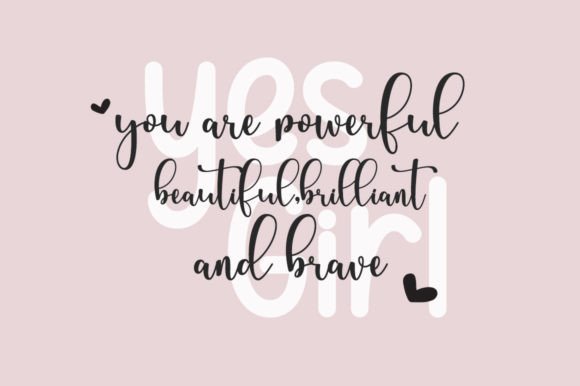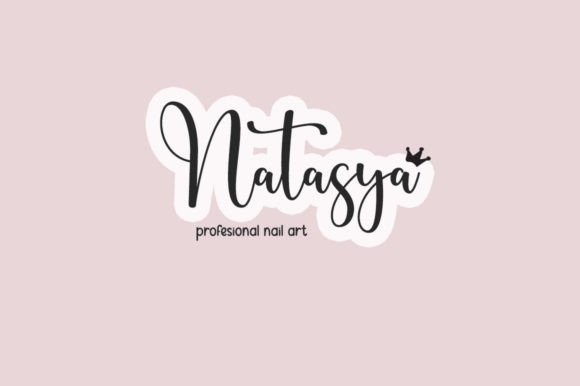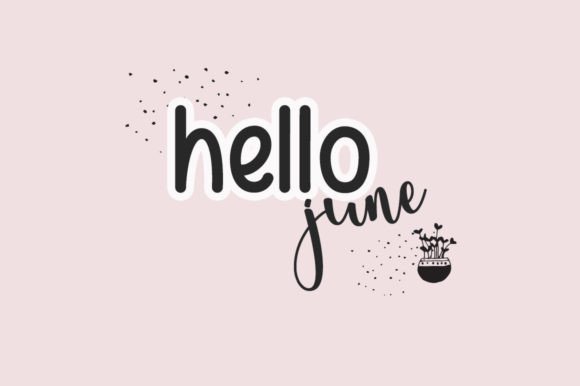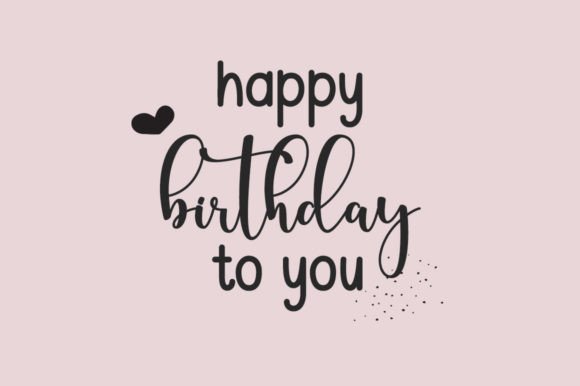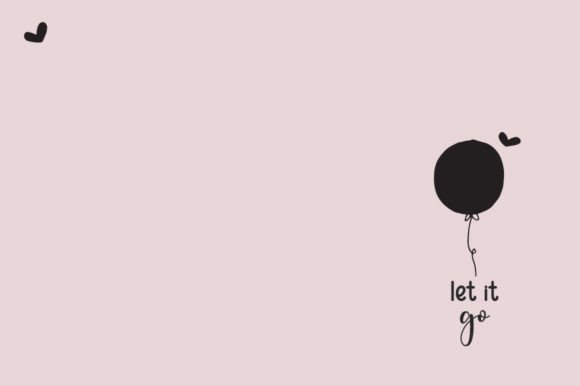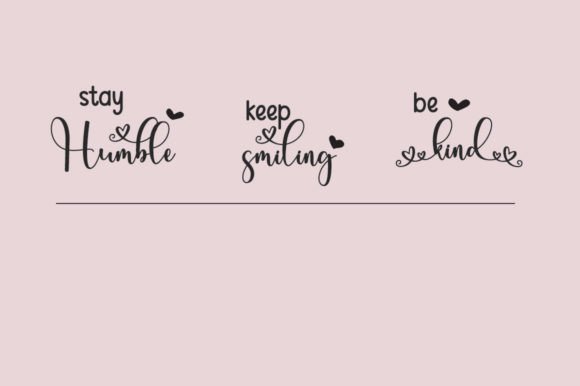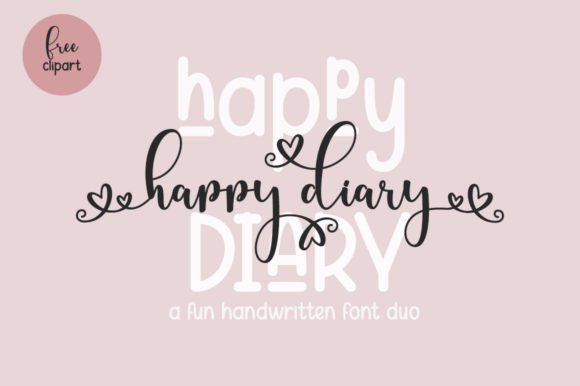
Introducing Happy Diary Font: The Perfect Duo for Your Design Needs
Are you tired of using the same old fonts for your designs? Look no further! Happy Diary Font is here to revolutionize your creative projects with its lovely, chic, and delicate duo font style. This stunning font combination consists of a sans serif and script font that will make your designs stand out from the crowd.
A Versatile Style to Fall in Love With
Happy Diary Font is incredibly versatile, making it perfect for a wide range of design applications. Whether you’re working on a branding project, creating social media graphics, or designing a beautiful craft, this font duo has got you covered. Its unique and elegant style will add a touch of sophistication to any design, making it a must-have for designers and crafters alike.
What Makes Happy Diary Font Special?
So, what sets Happy Diary Font apart from other fonts? Here are a few features that make it a standout:
- Duo Font Style: Happy Diary Font comes with two font styles – a sans serif and a script font. This allows you to mix and match the fonts to create a unique look that suits your design needs.
- PUA Encoded: This font is PUA (Private Use Area) encoded, which means you can access all the glyphs and swashes with ease. This makes it easy to use and customize the font to fit your design style.
Happy Diary Font is a dream come true for designers and crafters. Its versatility and elegance make it perfect for a wide range of projects, including:
- Branding and Logo Design: Create a stunning brand identity with Happy Diary Font. Its unique style will help your brand stand out from the competition.
- Social Media Graphics: Use Happy Diary Font to create eye-catching social media graphics that will grab the attention of your followers.
- Crafting and Scrapbooking: Add a touch of elegance to your crafts and scrapbooking projects with Happy Diary Font. Its delicate style is perfect for creating beautiful and intricate designs.
Tips for Using Happy Diary Font
Here are a few tips to help you get the most out of Happy Diary Font:
- Experiment with Font Combinations: Try pairing the sans serif and script fonts to create a unique look that suits your design style.
- Use Swashes and Glyphs: Take advantage of the PUA encoding and use the swashes and glyphs to add a personal touch to your designs.
- Play with Colors and Textures: Happy Diary Font looks great in a variety of colors and textures. Experiment with different combinations to find the one that works best for your design.